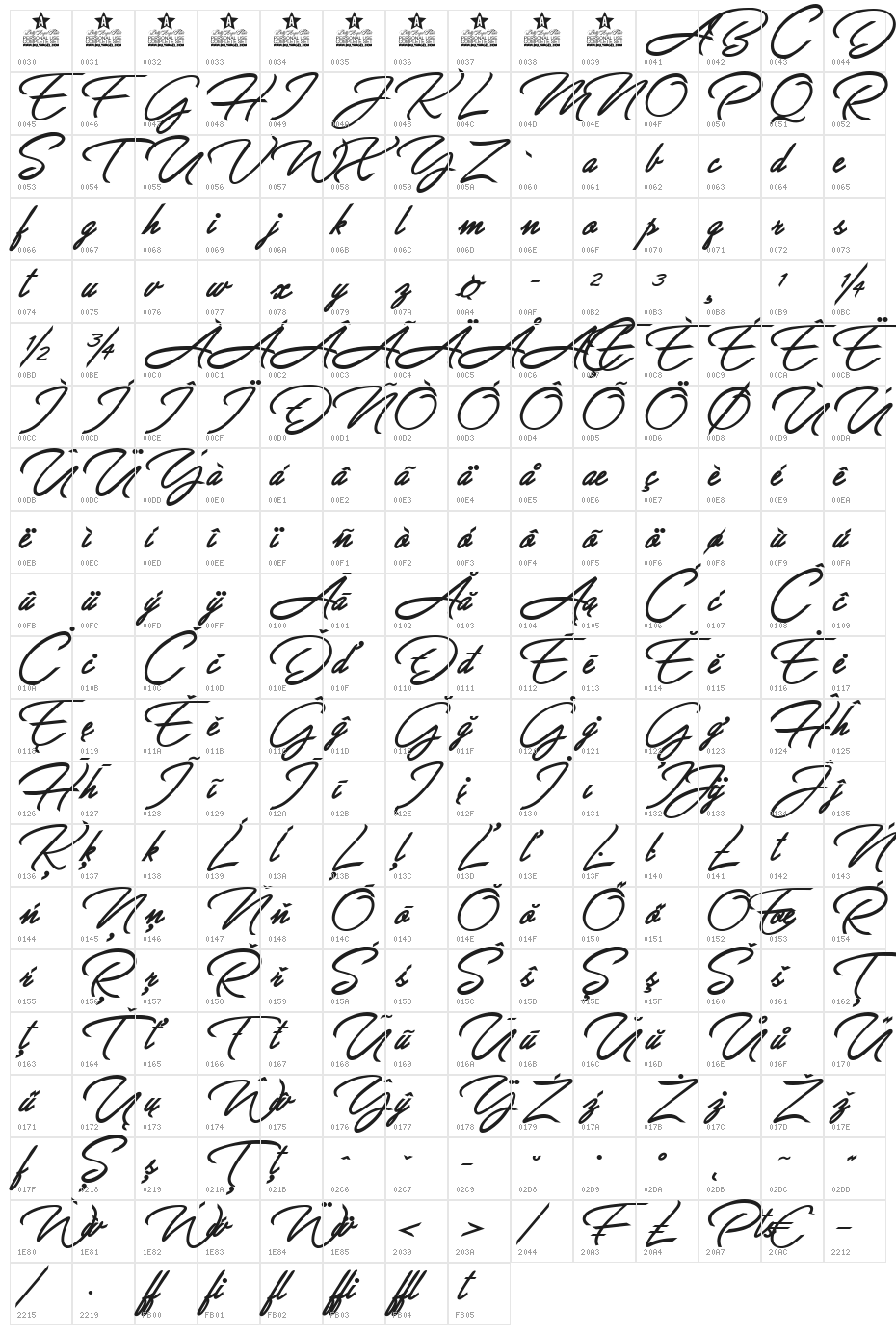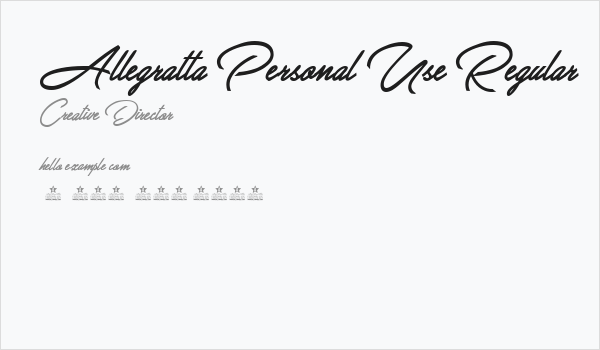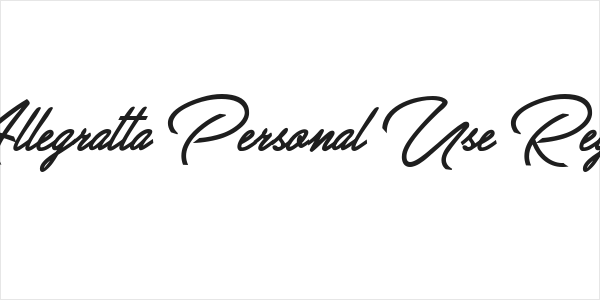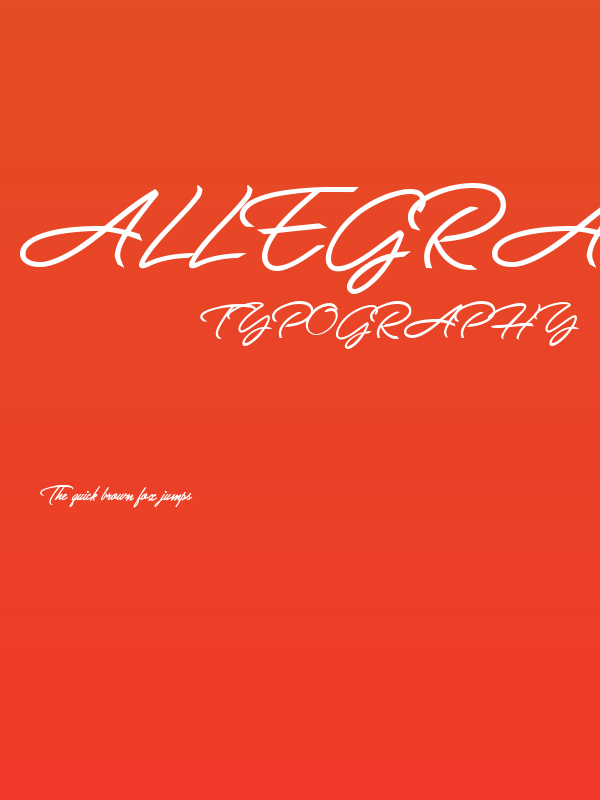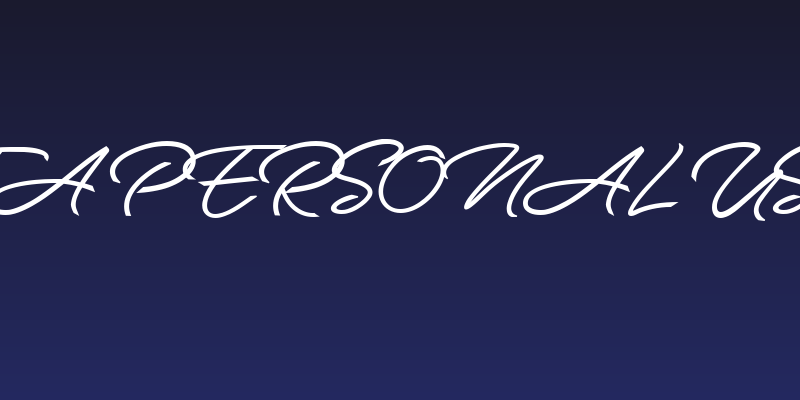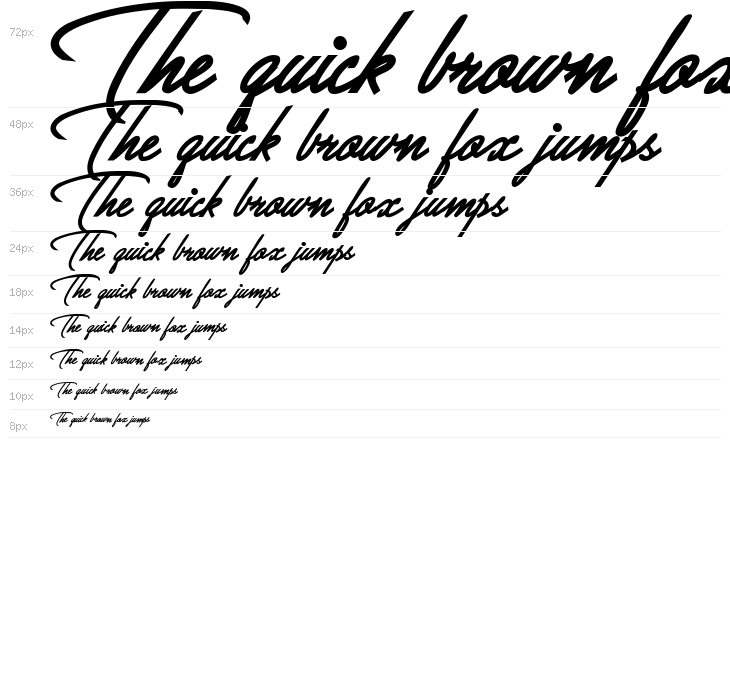
Allegratta Personal Use Regular Font
Allegratta Personal Use Regular Description
This font features a flowing, cursive style with elegant, sweeping lines that give it a sophisticated and artistic appearance. The uppercase letters are particularly ornate, with intricate loops and flourishes that add a touch of elegance. The lowercase letters maintain a consistent flow, making it ideal for creating a cohesive and visually appealing text. The font has a modern yet timeless feel, suitable for a variety of design projects. Its smooth curves and balanced proportions make it easy to read while still maintaining a decorative flair. The font is versatile, capable of being used in both formal and informal contexts, adding a personal touch to any design.